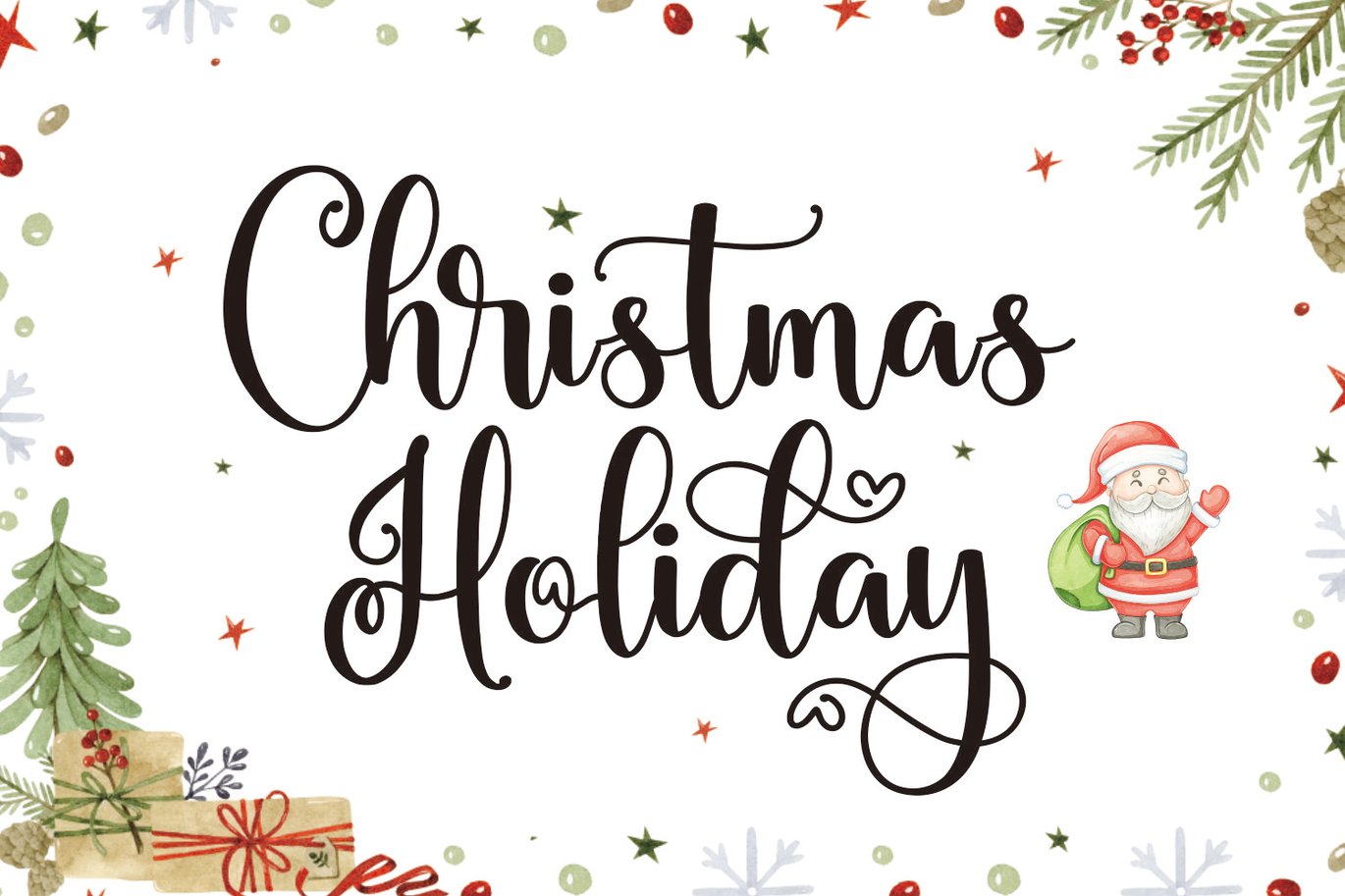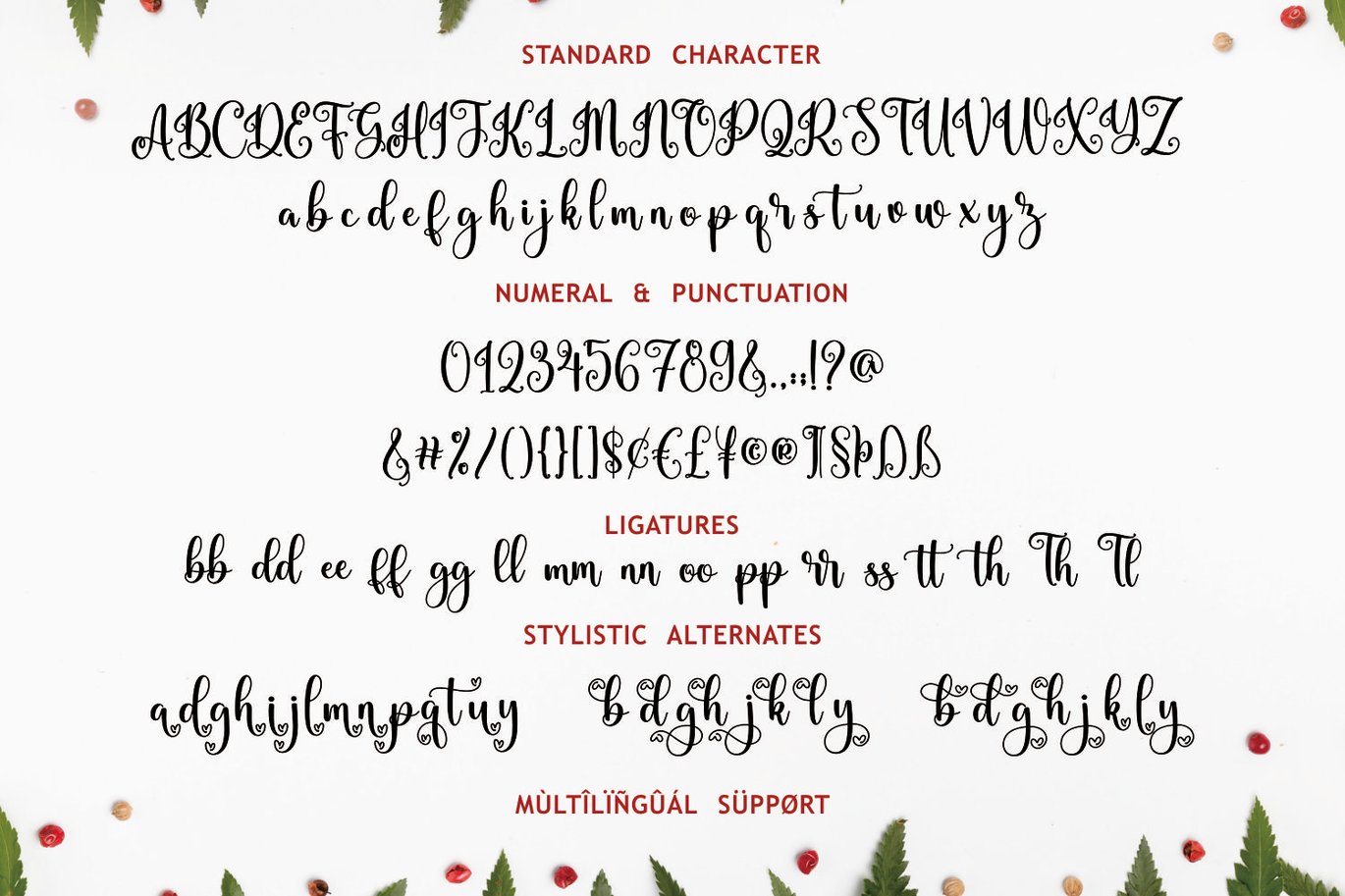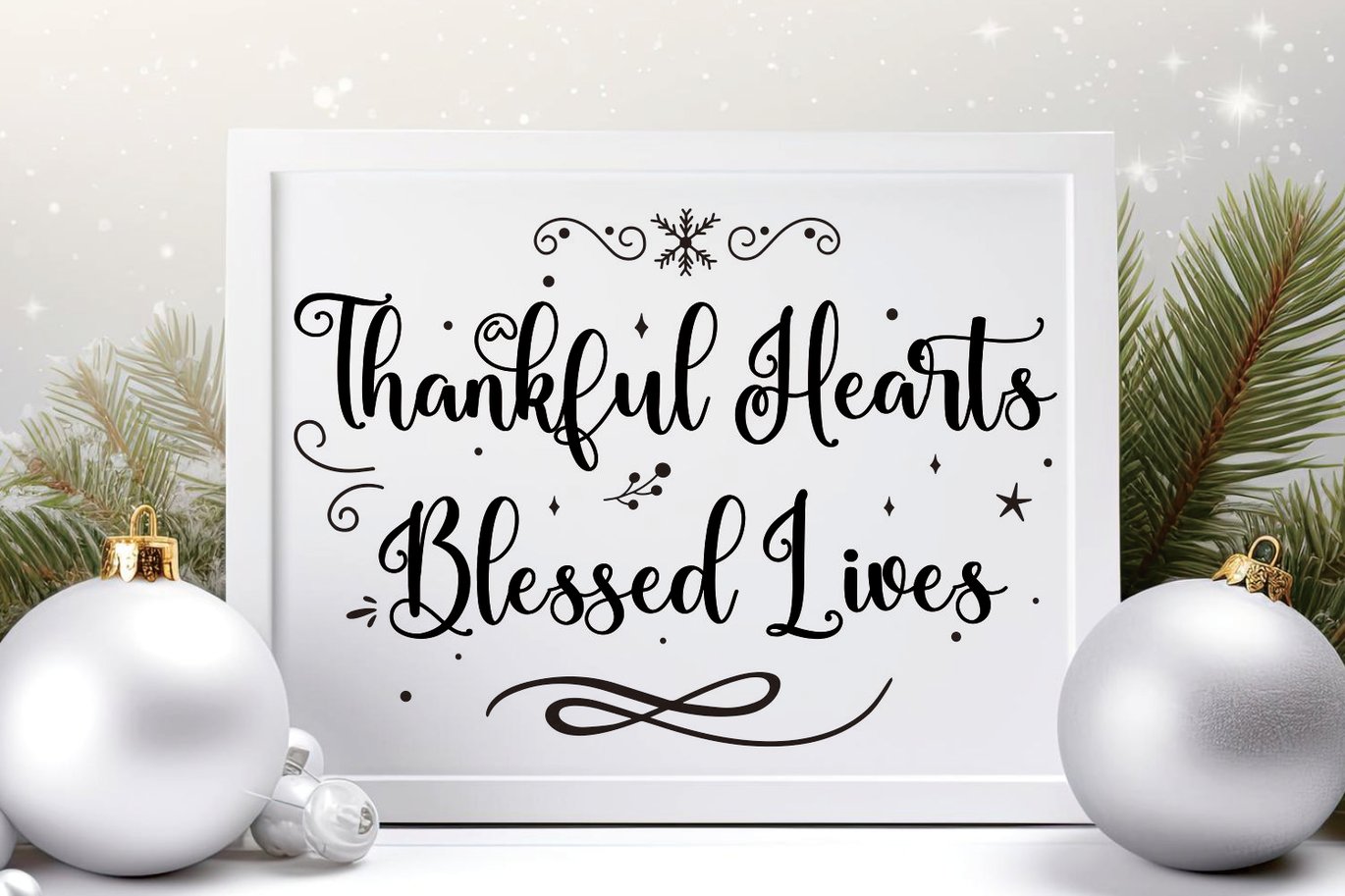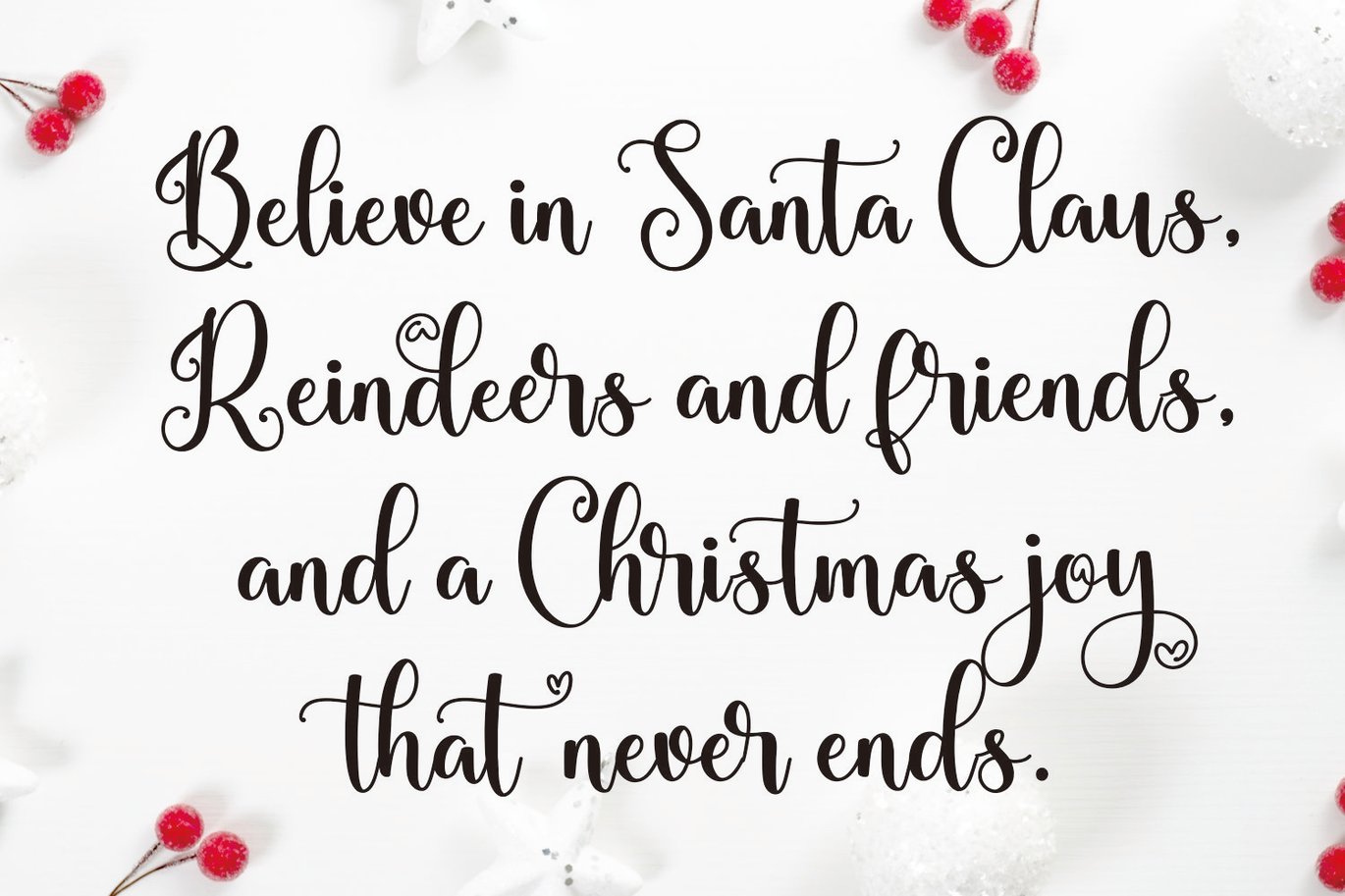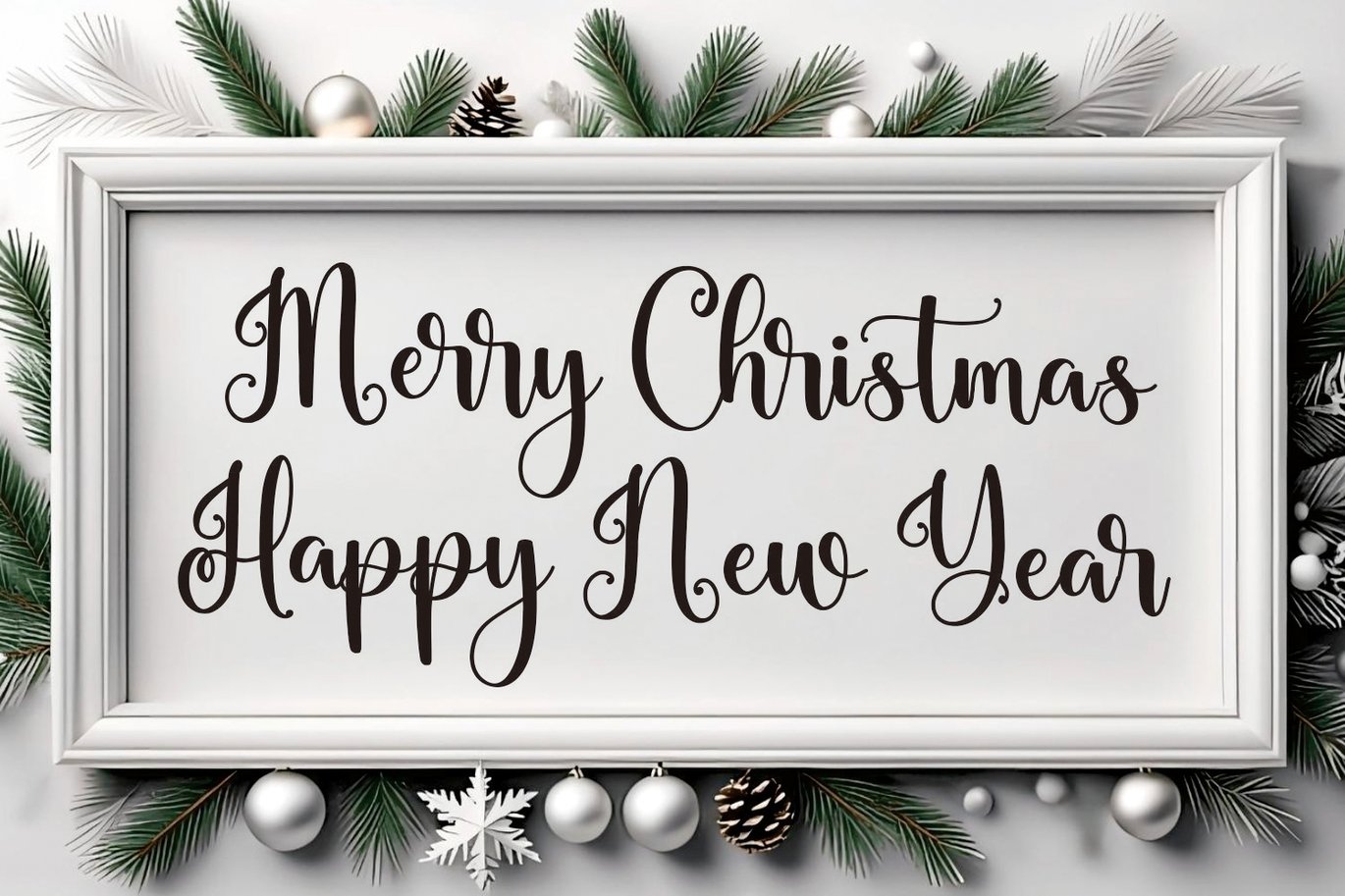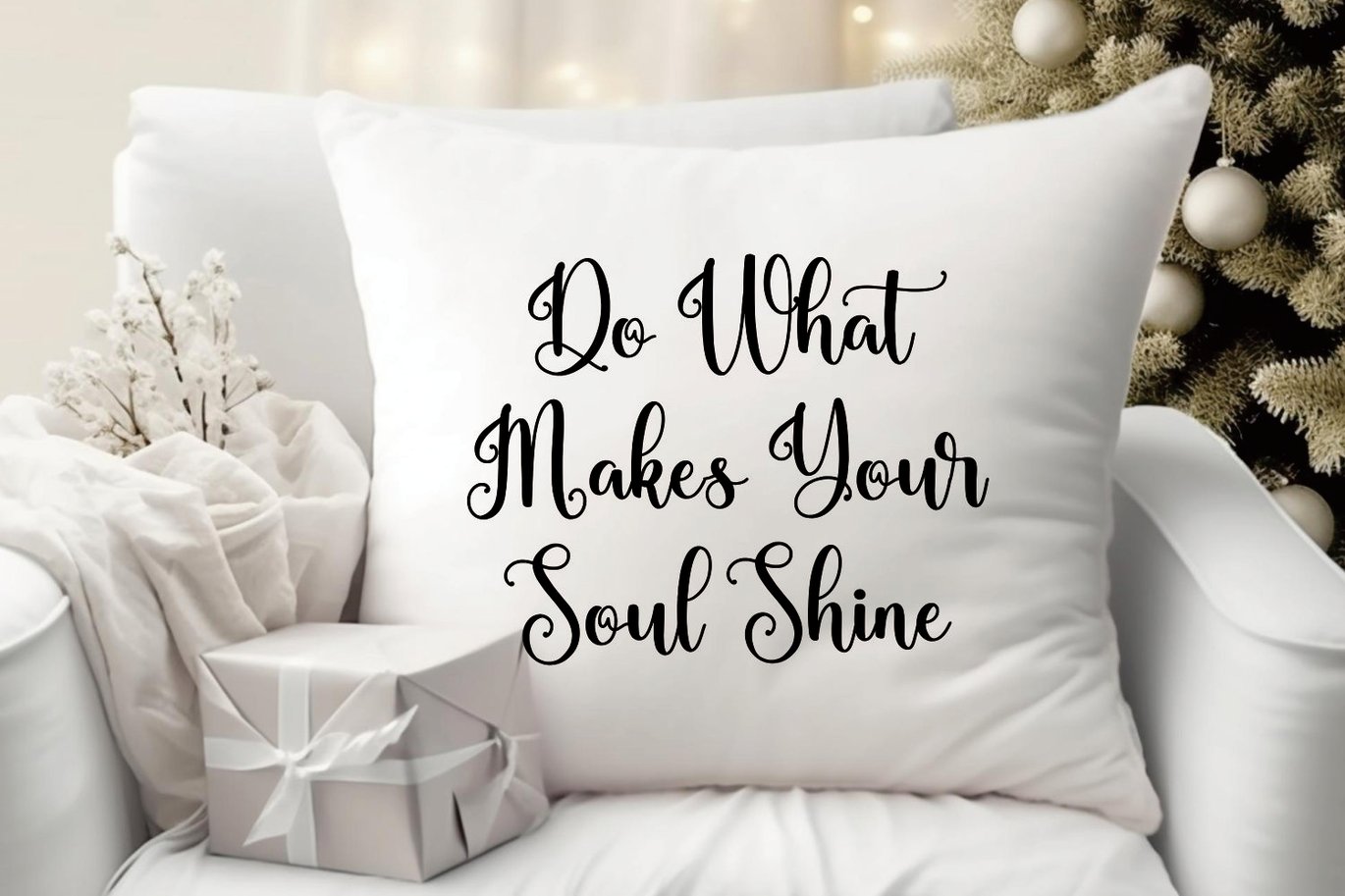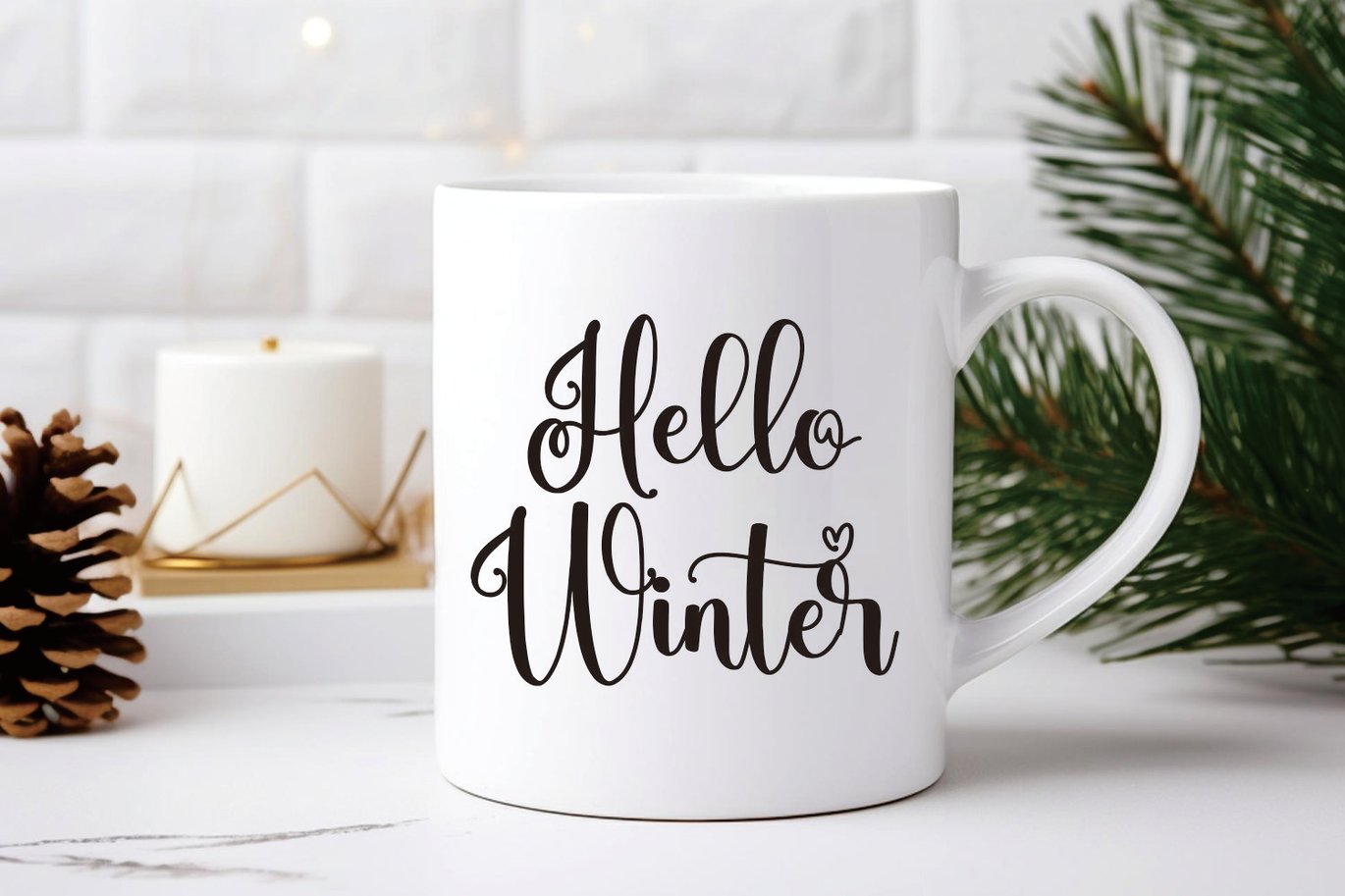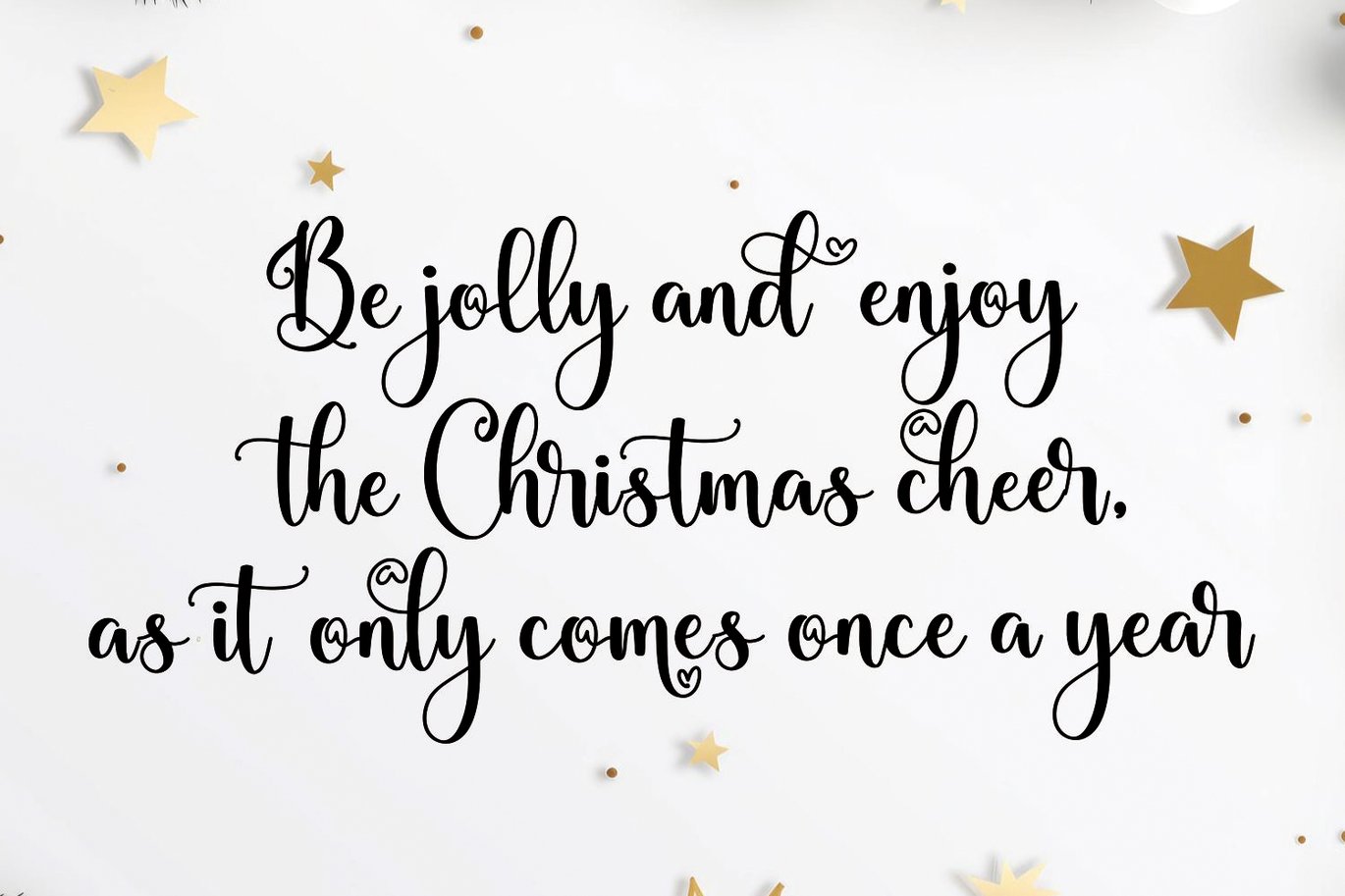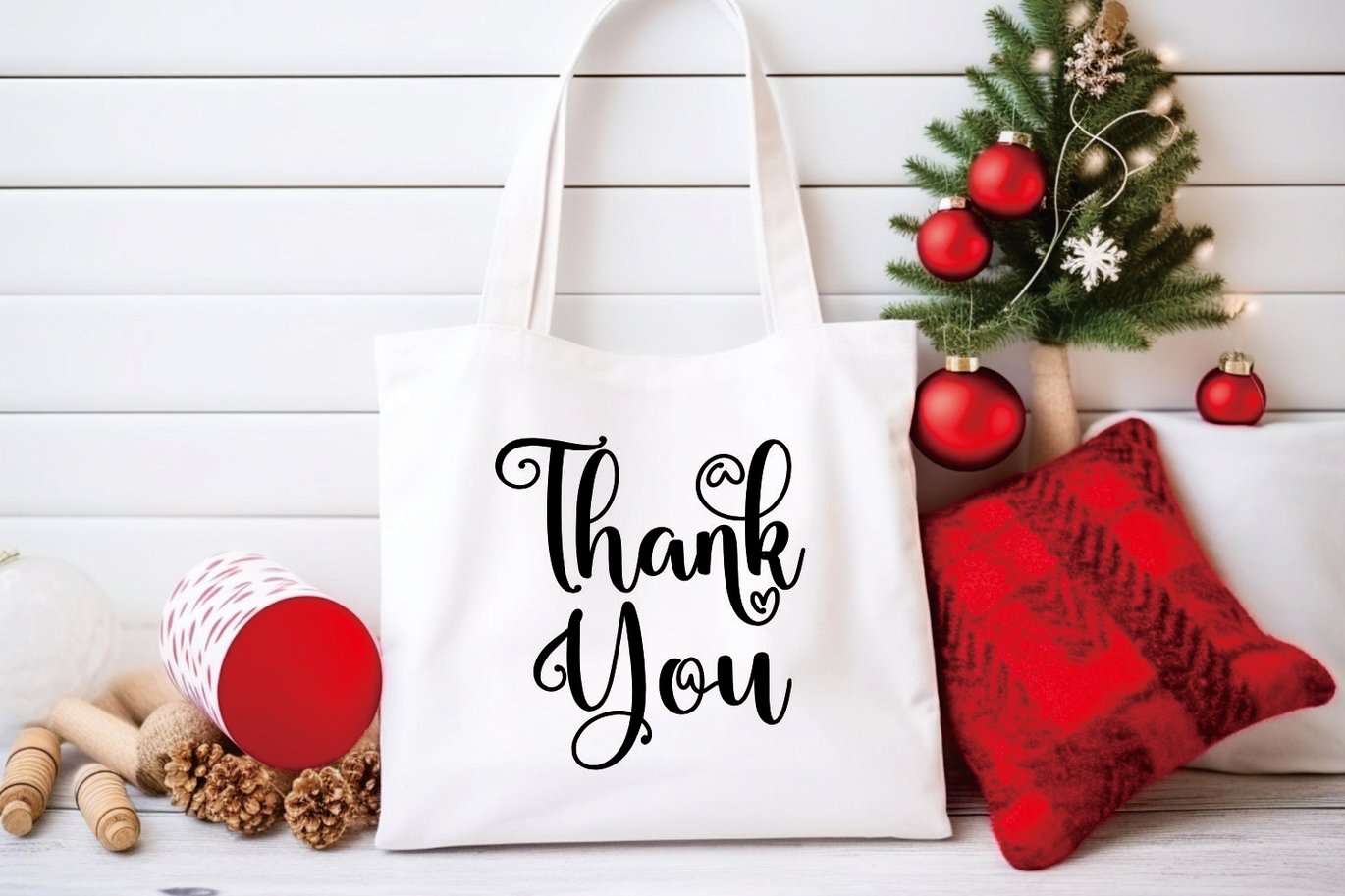
Christmas Holiday – Christmas Font
Introducing Christmas Holiday font, the quintessential script handwritten font that encapsulates the essence of festive celebrations! With its elegant strokes and charming curves, this font is perfect for adding a touch of warmth and joy to your Easter, Thanksgiving, and Christmas-themed projects. Whether you’re crafting greeting cards, creating intricate embroidery designs, or embellishing your Cricut creations, Christmas Holidayfont is your go-to choice for infusing your creations with holiday cheer.
Unlock your creativity and elevate your holiday crafts with Christmas Holiday font! Craft heartfelt messages, design intricate patterns, and personalize your projects with this versatile font. From Easter egg designs to Thanksgiving place cards, and from Christmas lettering to SVG designs, Christmas Holidayfont adds a delightful flair to every project. Download now and spread the holiday spirit with your unique creations!
Don’t miss out on the opportunity to make your holiday crafts truly special. Download Christmas Holiday font today and embark on a journey of creativity and joy. Let your imagination soar as you infuse your projects with the festive charm of this beautiful handwritten font. Transform your Easter, Thanksgiving, and Christmas creations into memorable works of art that capture the spirit of the season. Get started now and make this holiday season one to remember!